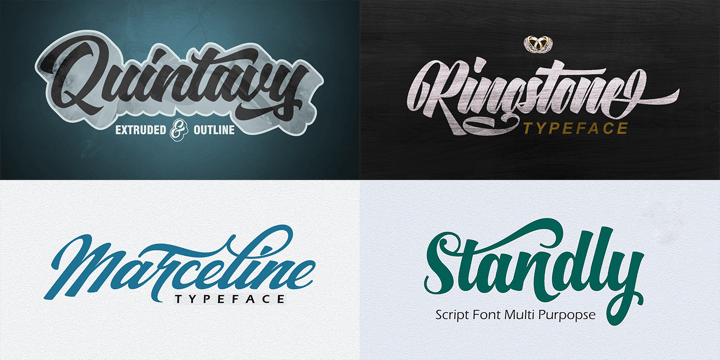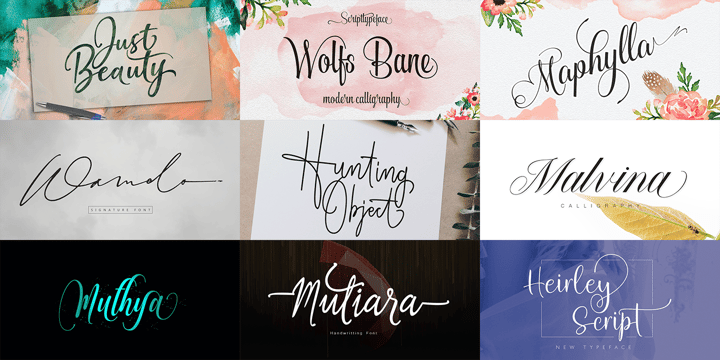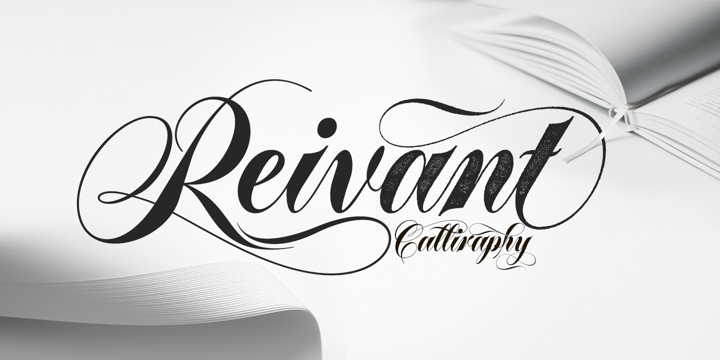
Display Bundle Typeface 17 styles
Display Bundle Typeface 17 styles is a combination of script fonts, which include calligraphy, handwritten, brush, monoline and signature fonts.